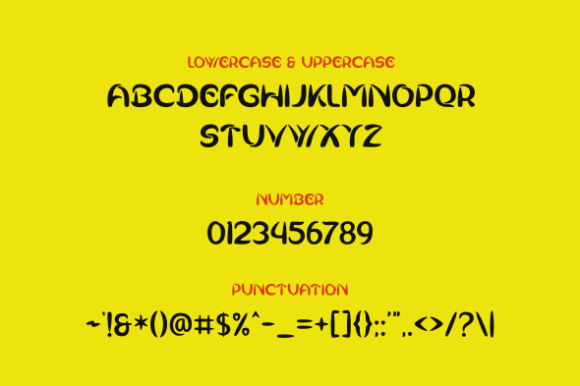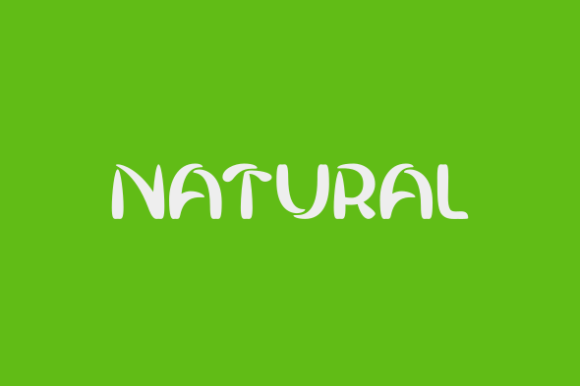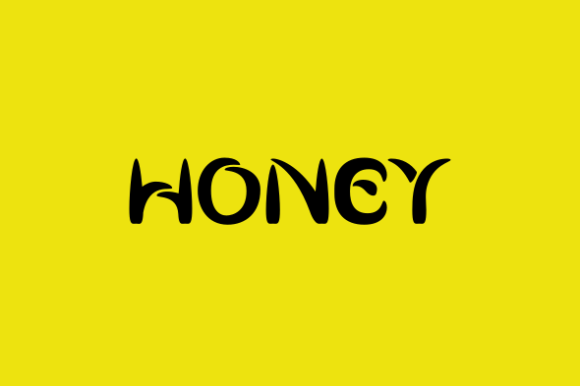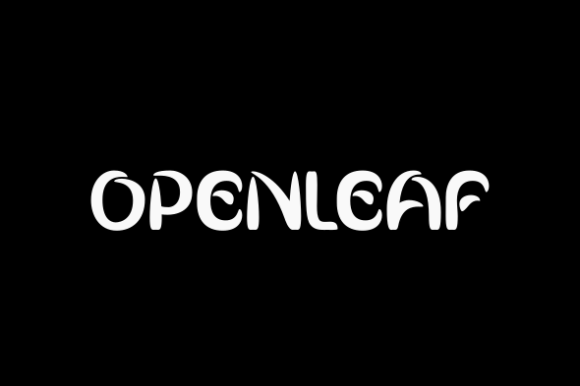
Bureuteu Font: The Ultimate Modern Display Font for Designers and Crafters
In the world of typography, a good font can make all the difference in creating visually stunning designs. If you’re a designer or crafter looking for a font that can elevate your creations, look no further than Bureuteu Font. This cool, bold, and modern display font is perfect for various projects, including quotes, ads, logos, branding, and more.
What is Bureuteu Font?
Bureuteu Font is a modern display font designed to make a statement. Its bold and sleek lines make it perfect for creating eye-catching designs that grab attention. The font’s unique style is inspired by contemporary typography, making it ideal for designers and crafters who want to add a touch of modernity to their work.
Key Features of Bureuteu Font
- Bold and Modern Design: Bureuteu Font features a bold and modern design that is perfect for creating stunning displays and headlines.
- Highly Versatile: This font is highly versatile and can be used for various projects, including quotes, ads, logos, branding, and more.
- Easy to Read: Despite its bold design, Bureuteu Font is easy to read, making it perfect for creating designs that need to convey a message.
- Unique Style: The font’s unique style sets it apart from other display fonts, making it a great choice for designers who want to create something distinctive.
Use Cases for Bureuteu Font
Bureuteu Font is perfect for a wide range of design projects, including:
- Quotes and Posters: Use Bureuteu Font to create stunning quotes and posters that grab attention.
- Advertisements: This font is perfect for creating eye-catching ads that stand out from the crowd.
- Logos and Branding: Bureuteu Font can be used to create unique logos and branding materials that reflect a modern and bold image.
- Social Media Graphics: Use this font to create stunning social media graphics that grab attention and engage your audience.
Why Choose Bureuteu Font?
With so many fonts available, why choose Bureuteu Font? Here are just a few reasons:
- Unique Design: Bureuteu Font features a unique design that sets it apart from other display fonts.
- High-Quality: This font is designed with high-quality in mind, ensuring that it looks great in any design.
Tips for Using Bureuteu Font
Here are a few tips for using Bureuteu Font in your designs:
- Use it Boldly: Bureuteu Font is designed to be used boldly, so don’t be afraid to make it big and eye-catching.
- Experiment with Colors: This font looks great in a variety of colors, so experiment with different colors to find the one that works best for your design.
- Pair it with Other Fonts: Bureuteu Font can be paired with other fonts to create a unique and interesting design.
Bureuteu Font is a cool, bold, and modern display font that is perfect for designers and crafters who want to create stunning designs. With its unique style, highly versatile design, and ease of use, this font is a great choice for a wide range of projects. Whether you’re creating quotes, ads, logos, or branding materials, Bureuteu Font is sure to make your designs stand out from the crowd.